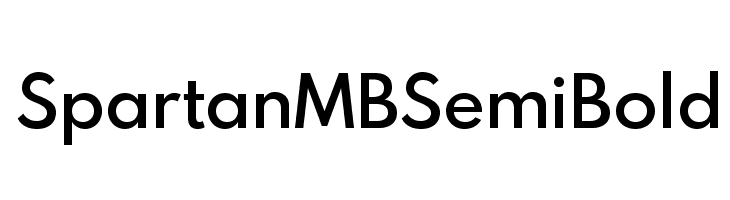
A bold, modern serif font with strong, thick strokes and a commanding presence.
A bold, textured font with a playful, artistic design.
A tall, narrow, and slanted font with a modern and dynamic style.
A playful, handwritten font with whimsical loops and swirls.
A bold, high-contrast font with a modern and assertive style.
A playful handwritten font with a casual and friendly style.
A bold, theatrical font with dramatic curves and vintage flair.
A playful and whimsical font with bold, rounded letterforms.
A playful, hand-drawn font with rounded, bold letterforms.
A bold, modern font with geometric influences and uniform stroke widths.
A bold, expressive handwritten font with dynamic strokes and a playful style.
A bold, geometric font with sharp, angular characters.
A bold, italicized monospaced font with a modern and structured appearance.
A playful, dotted cursive font with a whimsical and airy design.
A bold, playful script font with a handwritten style.
A bold, decorative font with Celtic influences and angular serifs.
A bold, geometric font with circular cutouts for a playful, modern look.
An elegant script font with fluid, cursive strokes and graceful loops.
A modern, condensed font with excellent readability and a professional appearance.
An elegant, cursive italic font with smooth, flowing strokes.
A sleek, modern, condensed font with an extra light weight and italic style.
A modern, geometric font with bold, angular characters and unique design elements.